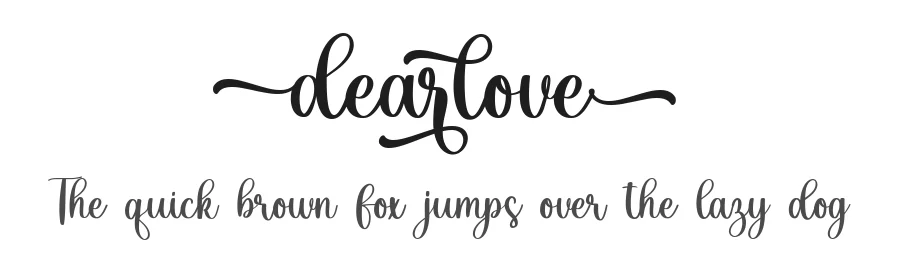
About Sometime Font
Sometime Specifications
| Font Family | Sometime |
| Full Name | Sometime |
| Glyph Count | 118 glyphs |
| PostScript Name | SometimeRegular |
Sometime ships with 1 OpenType feature you can switch on in apps that support them (Illustrator, InDesign, Affinity, Figma, CSS font-feature-settings).
Sometime supports 198 languages.
Sometime Font is a script font that shines as a display or heading face. Pair it with a clean sans-serif or serif font for body text β the contrast creates a clear hierarchy while the two styles stay balanced and easy to read.
Sometime Font